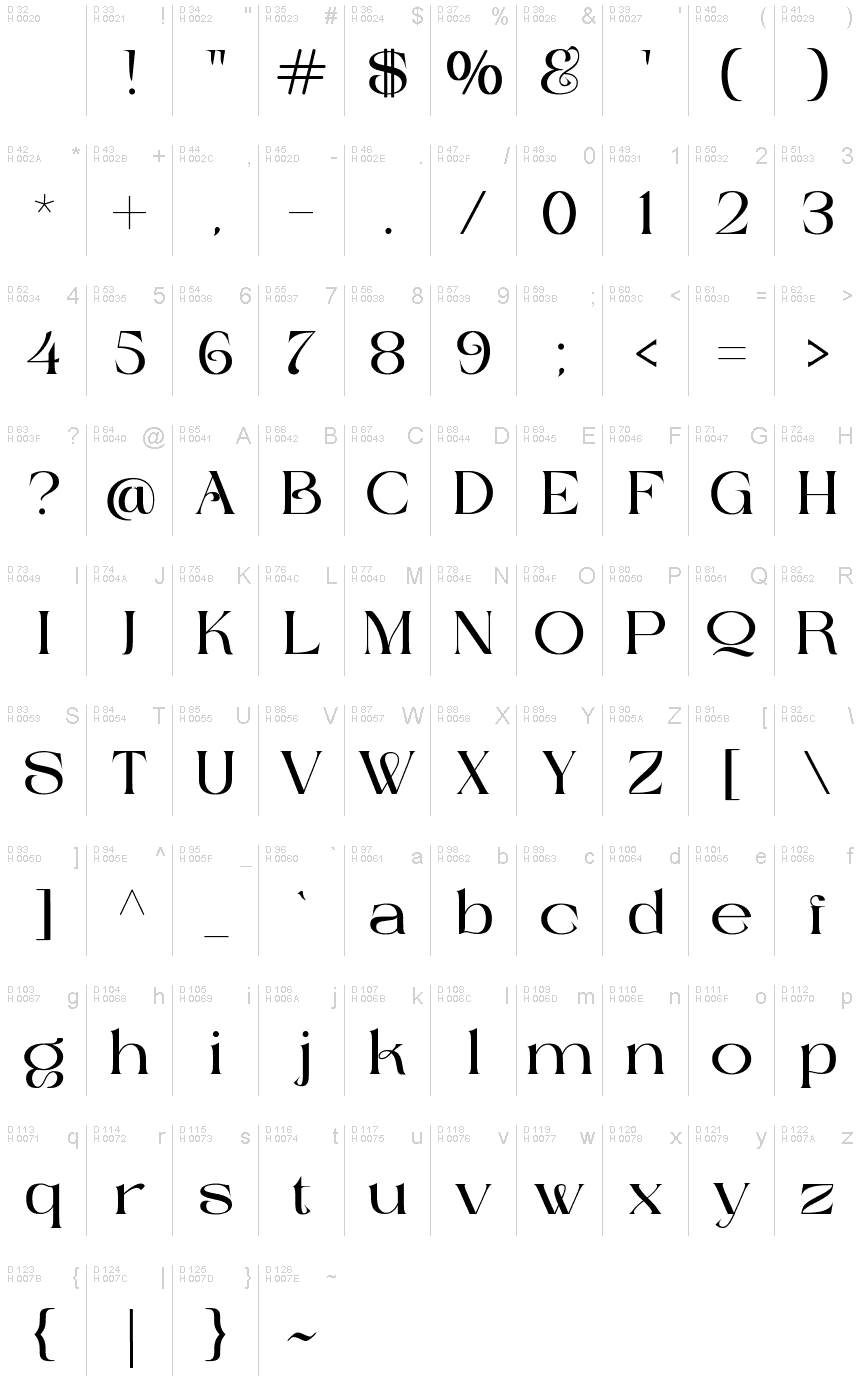
Cavas Demo
Cavas font by Ekayasa is an elegant serif font. Perfect for creating formal designs, it will make any project look sophisticated and professional. This font is ideal for headlines, logos, invitations, and editorial design.